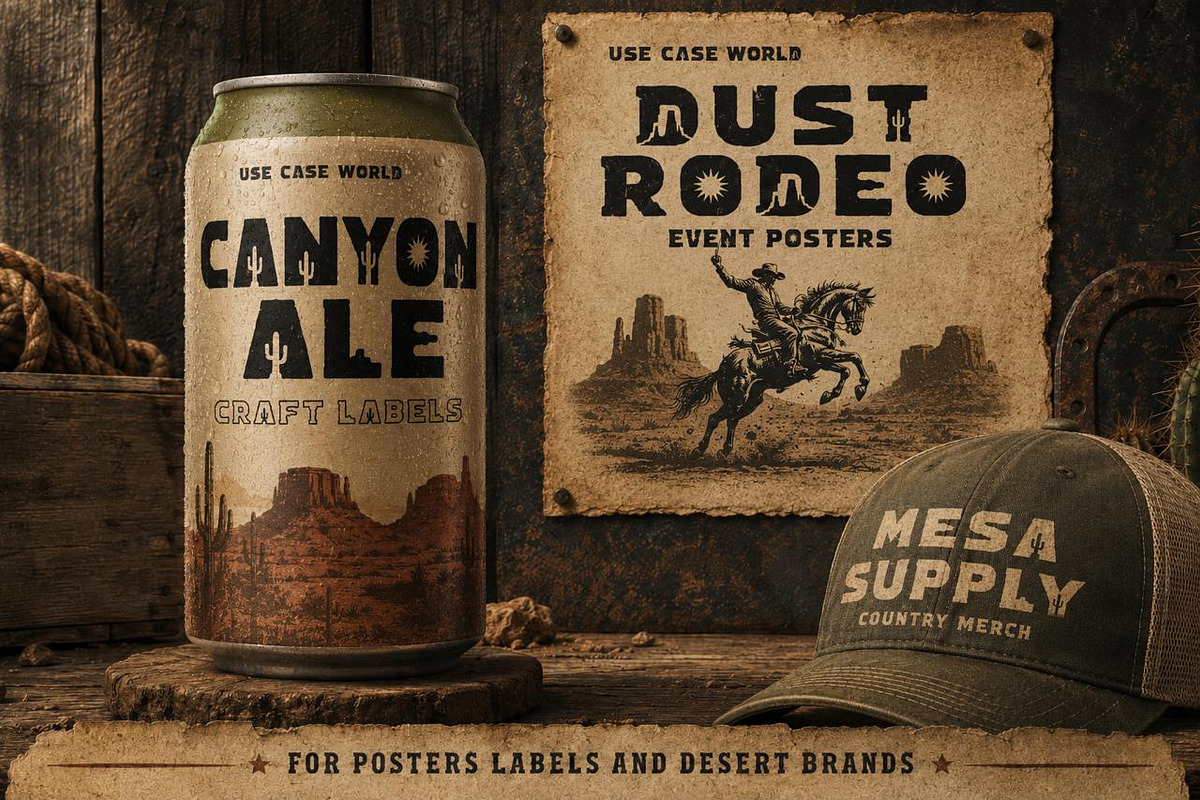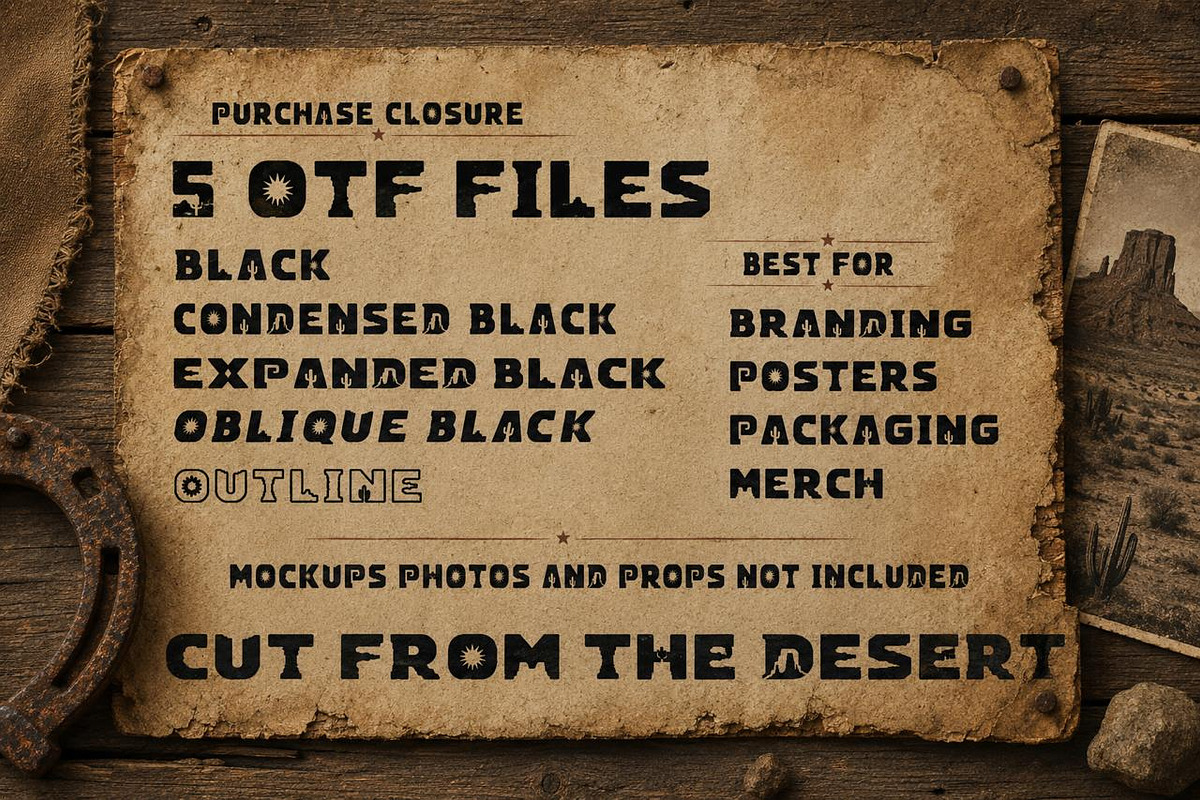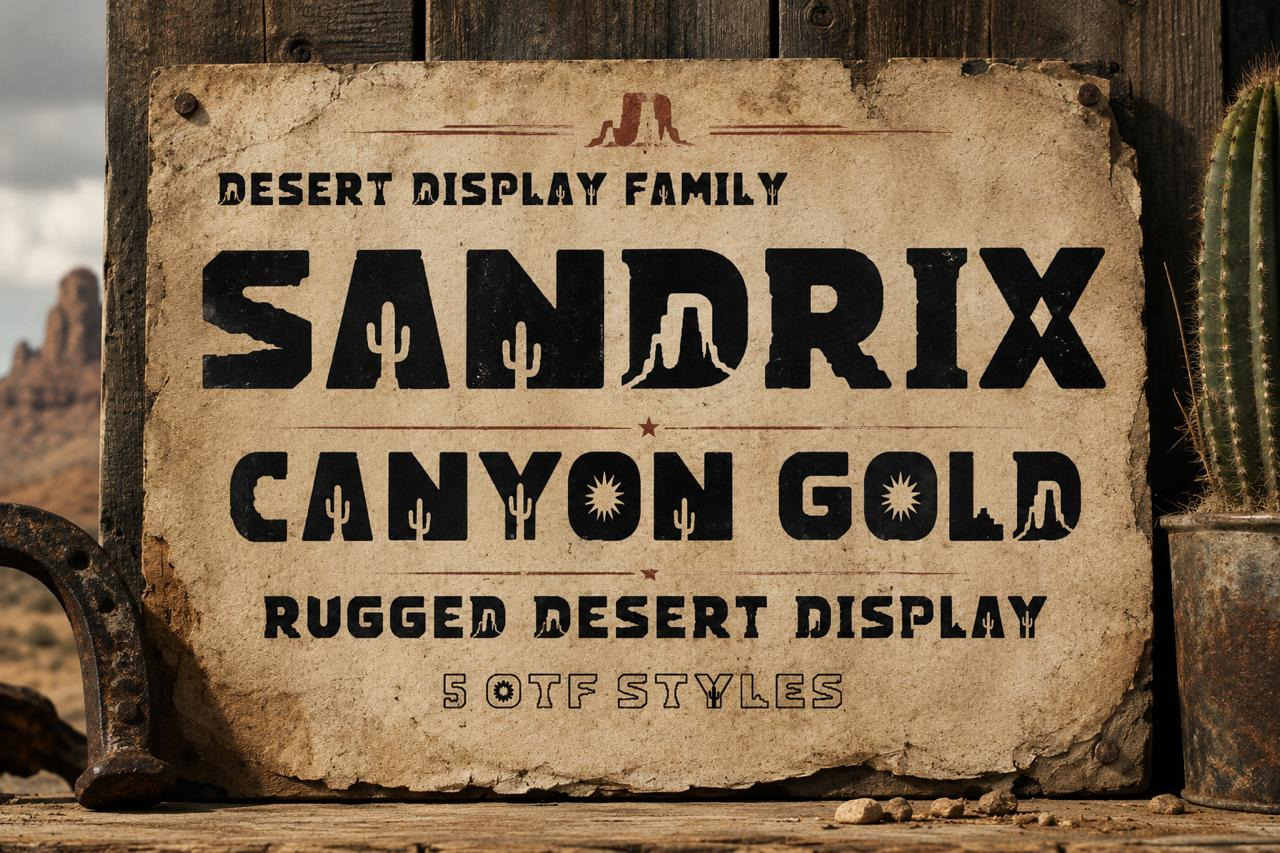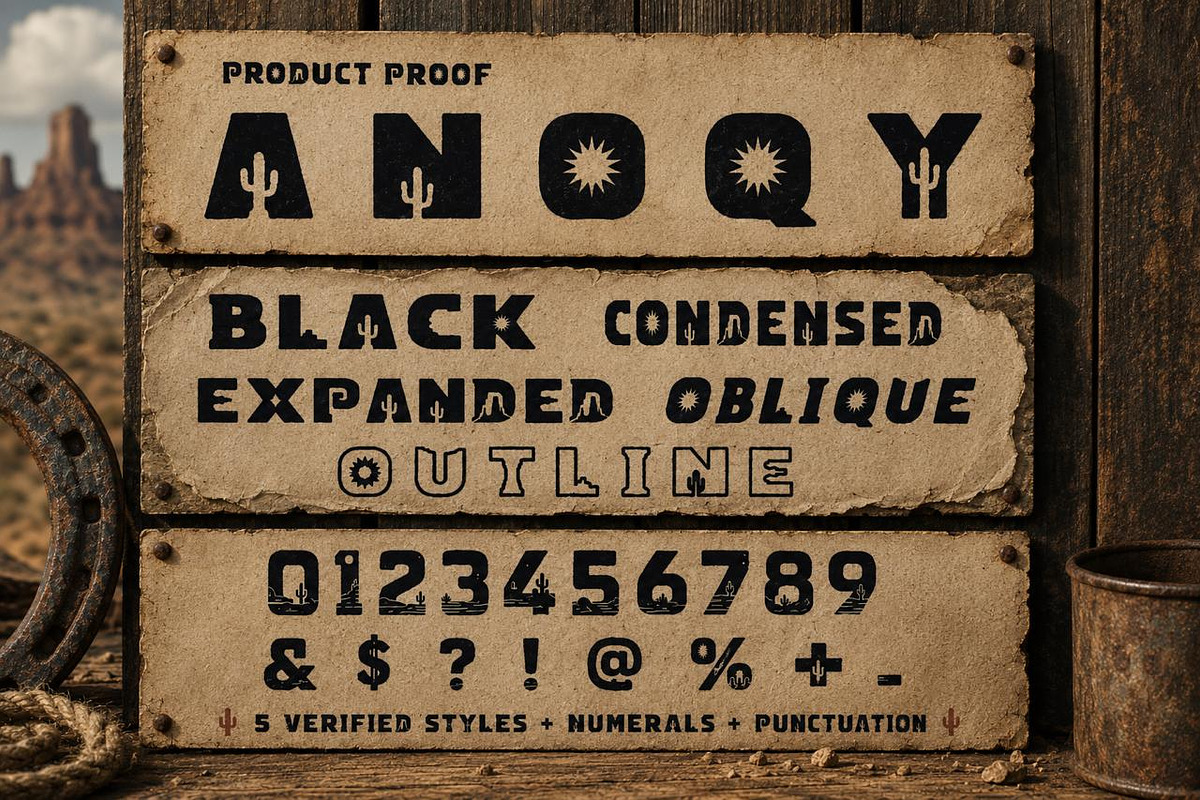
SANDRIX Western Desert Font Family
SANDRIX is a bold western desert display font family created for high-impact branding, posters, packaging, apparel, event graphics, and cinematic headlines.
Its heavy block construction is carved with cactus, mesa, canyon, and sun-inspired negative spaces, turning ordinary words into miniature desert landscapes. The family includes five coordinated styles for building stronger visual hierarchy while maintaining one distinctive identity.
* Western and desert-inspired branding
* Bold logos and wordmarks
* Rodeo and country event posters
* Craft beverage and food packaging
* Outdoor and heritage labels
* Apparel and merchandise
* Album artwork and book covers
* Cinematic titles and social media headlines
* This is a decorative display family intended primarily for headlines and short text.
Bring bold frontier character to your next brand, poster, package, or merchandise collection with SANDRIX.